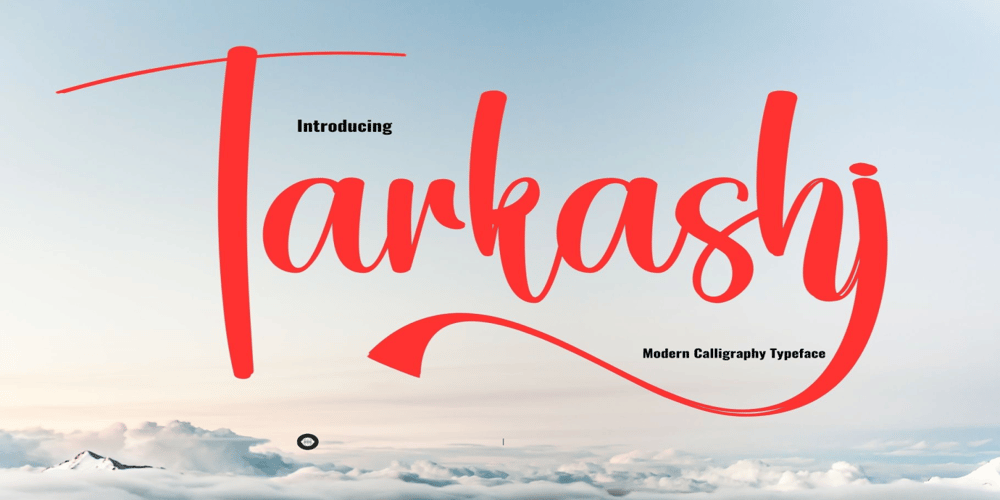
Tarkashj Font Family was designed by Patricia Carvalho and published by Adita Fonts. Tarkashj contains 1 styles and family package options. About the ProductTarkashj is an exquisite handwritten font, masterfully designed to become a true favorite. It maintains its classy calligraphic influences while feeling contemporary and fresh. Fall in love with it and bring your projects to the highest levels!